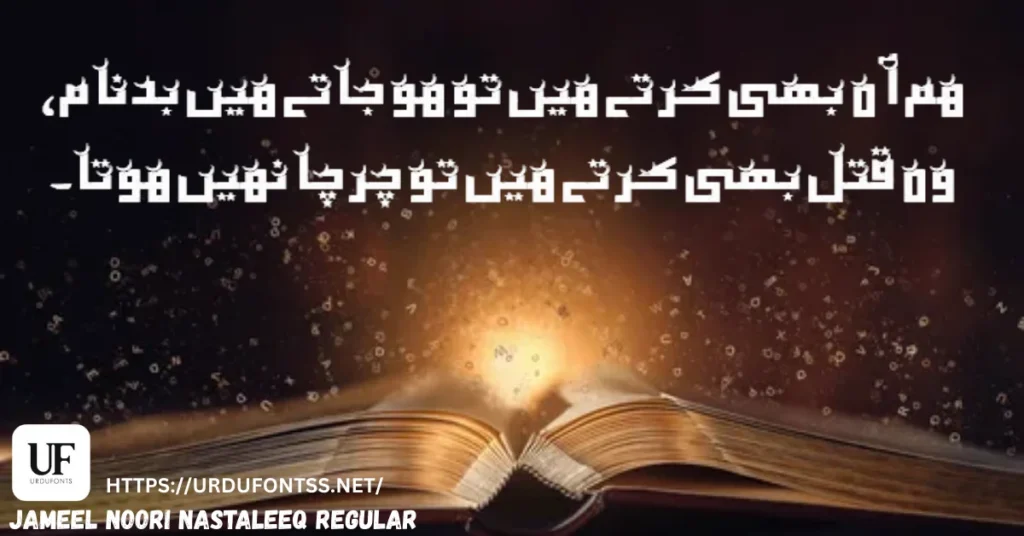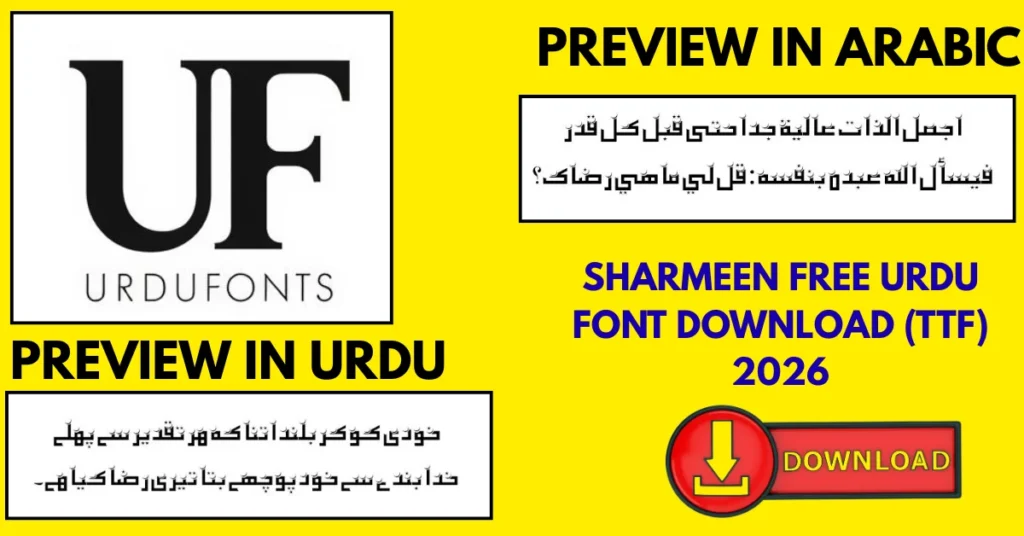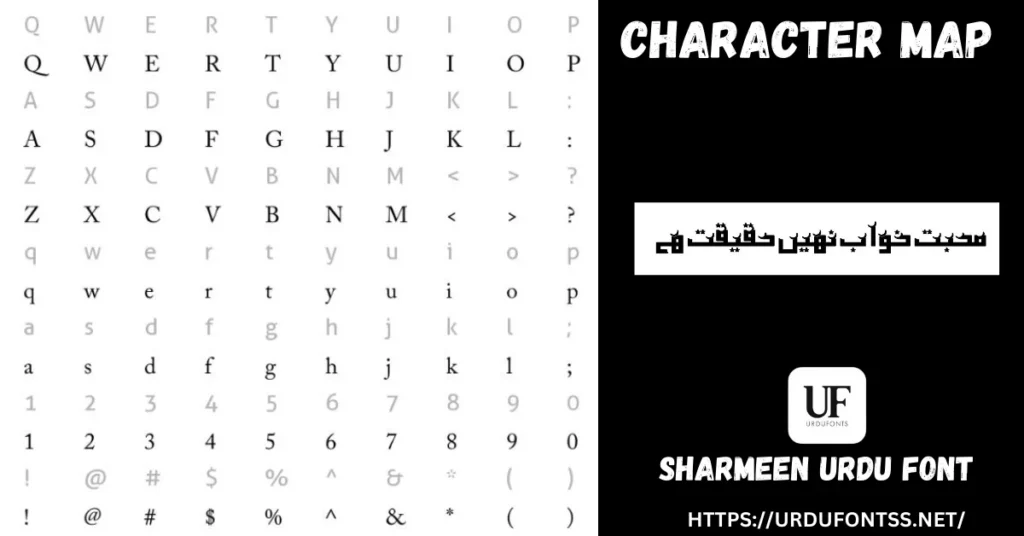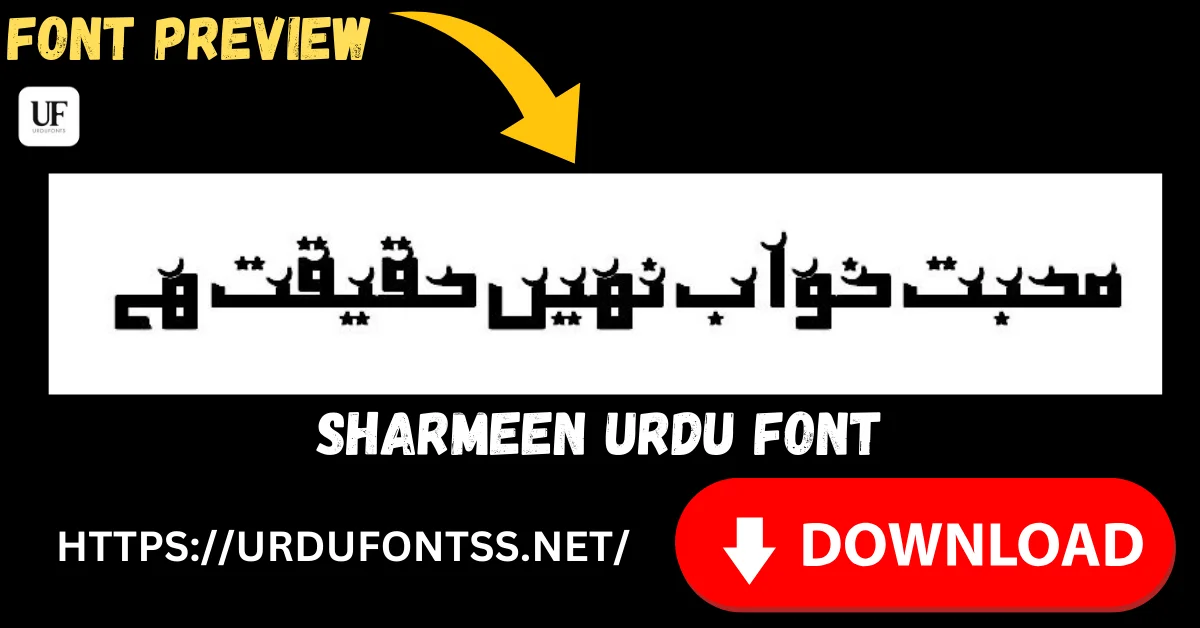
Sharmeen Font – Elegant Urdu Typography for Designers
If you are a designer, content creator, or Urdu enthusiast looking for a font that balances elegance and readability, Sharmeen is a perfect choice. Known for its smooth curves and clean style, this TrueType font has gained immense popularity among Urdu font users worldwide. With over 670,000 downloads and a solid rating of 3.9/5, it’s clear why this font is a favorite for creative projects, digital content, and professional designs.
Key Features of Sharmeen Font
Sharmeen is more than just a decorative typeface. Its thoughtfully designed characters make Urdu text look modern yet maintain its traditional charm. Some standout features include:
- Elegant Design: Perfectly crafted curves give text a flowing, stylish appearance that enhances any Urdu content.
- High Readability: Maintains clarity even in smaller sizes, ideal for both digital and print use.
History and Popularity
Although relatively modern, Sharmeen has quickly become one of the most downloaded Urdu fonts online. Its popularity is due to a combination of:
- Aesthetic Appeal: Its balanced design is easy on the eyes, combining traditional Urdu calligraphy elements with modern usability.
- User Trust: Positive ratings from thousands of users show that this font is reliable and versatile for multiple applications.
- Wide Application: From social media graphics to professional branding, this font is often preferred for projects that require elegance and readability.
Designers, typographers, and content creators prefer Sharmeen for several reasons:
- Versatility Across Platforms: Works seamlessly in word processors, design software, and even online applications.
- Professional Look: Ideal for branding, certificates, formal invitations, and official documents.
- Digital-Friendly: Optimized for screen display, making it perfect for websites, blogs, and social media posts.
- Traditional Yet Modern: Maintains classic Urdu calligraphy aesthetics while keeping a clean, contemporary look.
Practical Applications of Sharmeen Font
Sharmeen is not just decorative—it is highly functional across multiple use cases:
- Graphic Design Projects: Enhance posters, banners, flyers, and social media visuals.
- Content Writing: Create beautifully formatted Urdu blogs, newsletters, and eBooks.
- Branding & Logos: Perfect for businesses, personal brands, and cultural organizations.
- Events & Invitations: Adds sophistication to wedding cards, event invitations, and festive designs.
- Educational Materials: Ideal for textbooks, learning guides, and digital tutorials.
Design Details and Character Map
While the font doesn’t include an extensive glyph set, it focuses on providing high-quality essential Urdu characters for professional design. The design emphasizes smooth transitions between letters, ensuring that connected text flows naturally without breaking the readability. This makes it a preferred choice for typography enthusiasts and professional designers alike.
Conclusion
Sharmeen is not just another Urdu font—it’s a versatile tool that elevates the beauty and readability of your content. Its lightweight TrueType format, professional design, and compatibility across platforms make it ideal for both personal and commercial projects. Whether you are a designer, content creator, or Urdu enthusiast, this font ensures your work looks polished, elegant, and visually appealing.